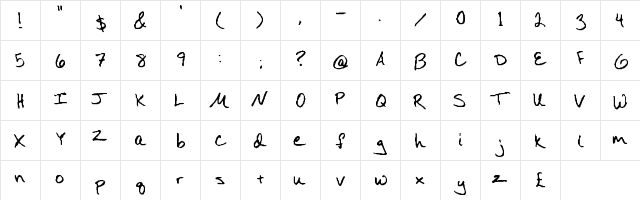
GrahamScript Regular
Design Context for GrahamScript Typeface
GrahamScript flows with the natural rhythm of handwritten lettering, making it ideal for designs that call for warmth and personal expression.
Font Pairing: Combine GrahamScript with a simple geometric sans for maximum contrast — the tension between flowing curves and clean structure is a classic typographic pairing.
Pro Tip: Use GrahamScript for short runs of text — names, titles, or taglines. Extended body copy in script faces tires the eye quickly.